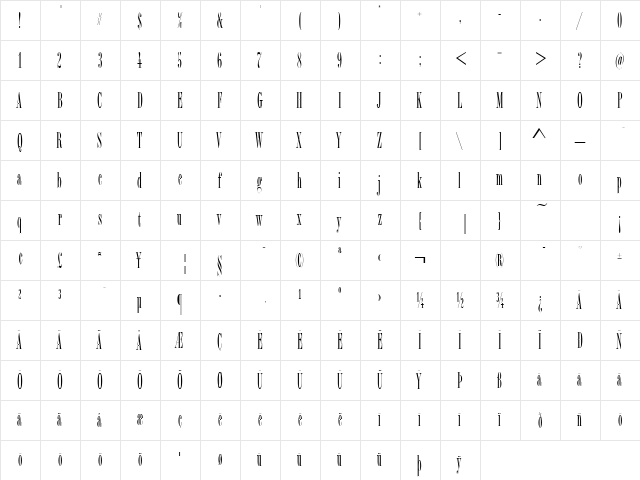
Bordeaux ICG Regular
Design Context for Bordeaux ICG Typeface
Bordeaux ICG offers clean, dependable letterforms without strong stylistic allegiance, making it a practical choice for designers who need flexibility.